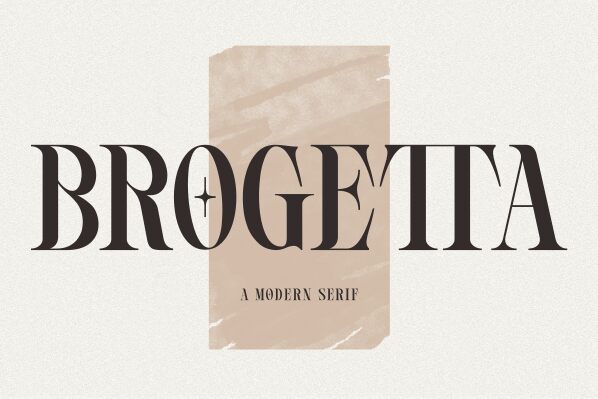
BROGETTA-Regular
BROGETTA, the brainchild of font designer Hanzel Space, is a modern serif font that exudes sophistication and elegance. With its semi-light weight, BROGETTA adds a touch of delicacy to any project it graces.
This versatile font is perfect for a myriad of creative endeavors such as fashion magazines, logo design, branding projects, photography showcases, and wedding invitations. Its clean and refined aesthetic also makes it an excellent choice for quotes, blog headers, posters, advertisements, postcards and books.
Let BROGETTA elevate your website design with its timeless charm and make your content truly captivating.